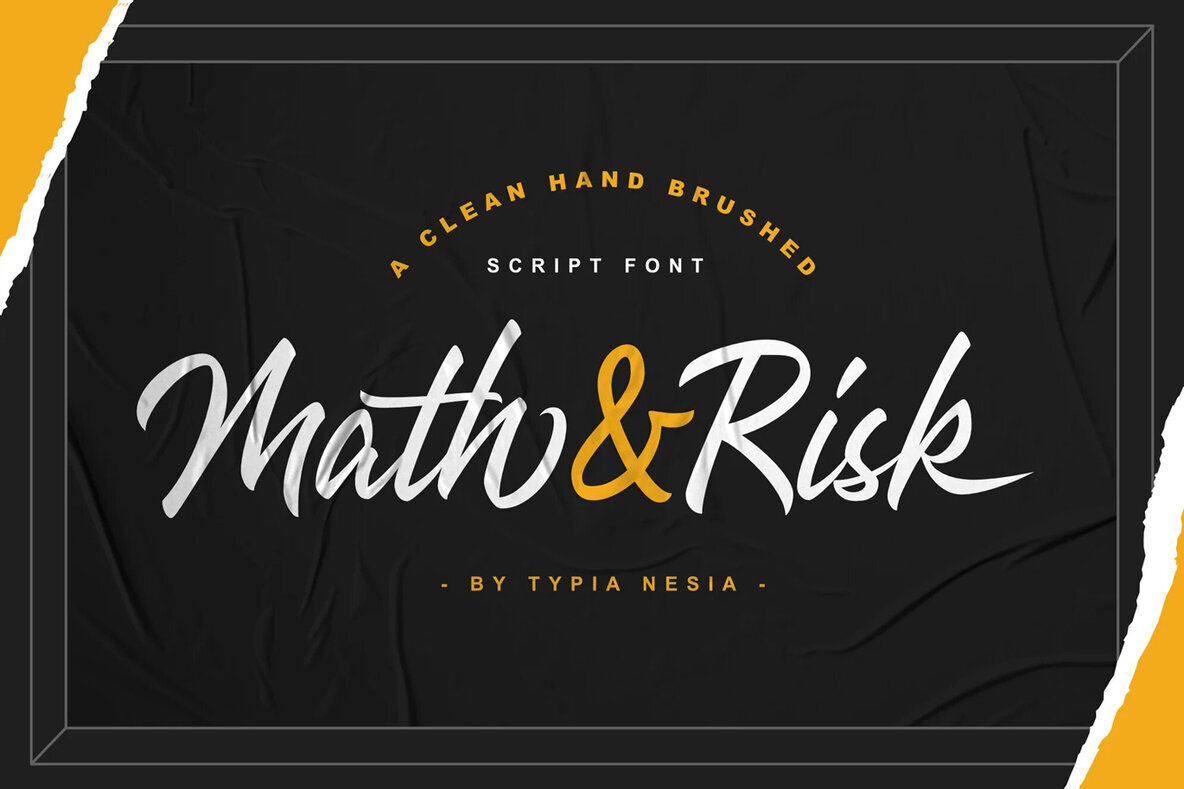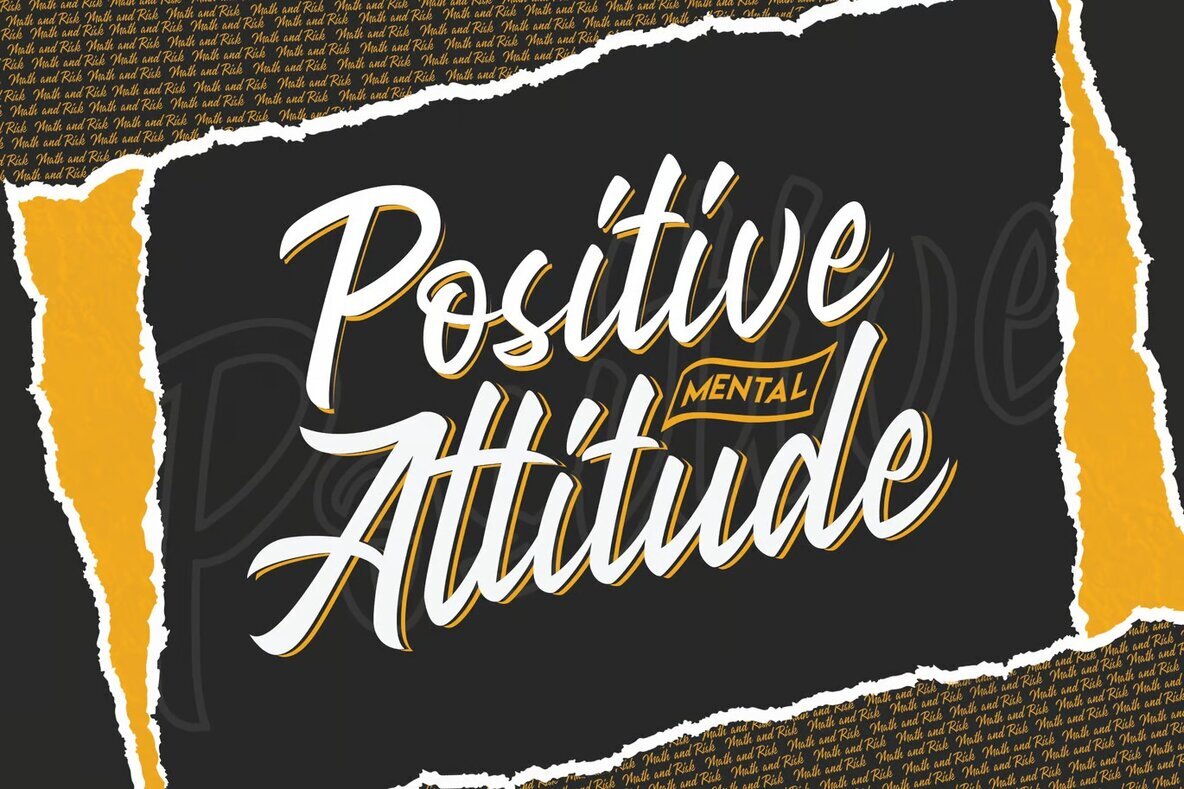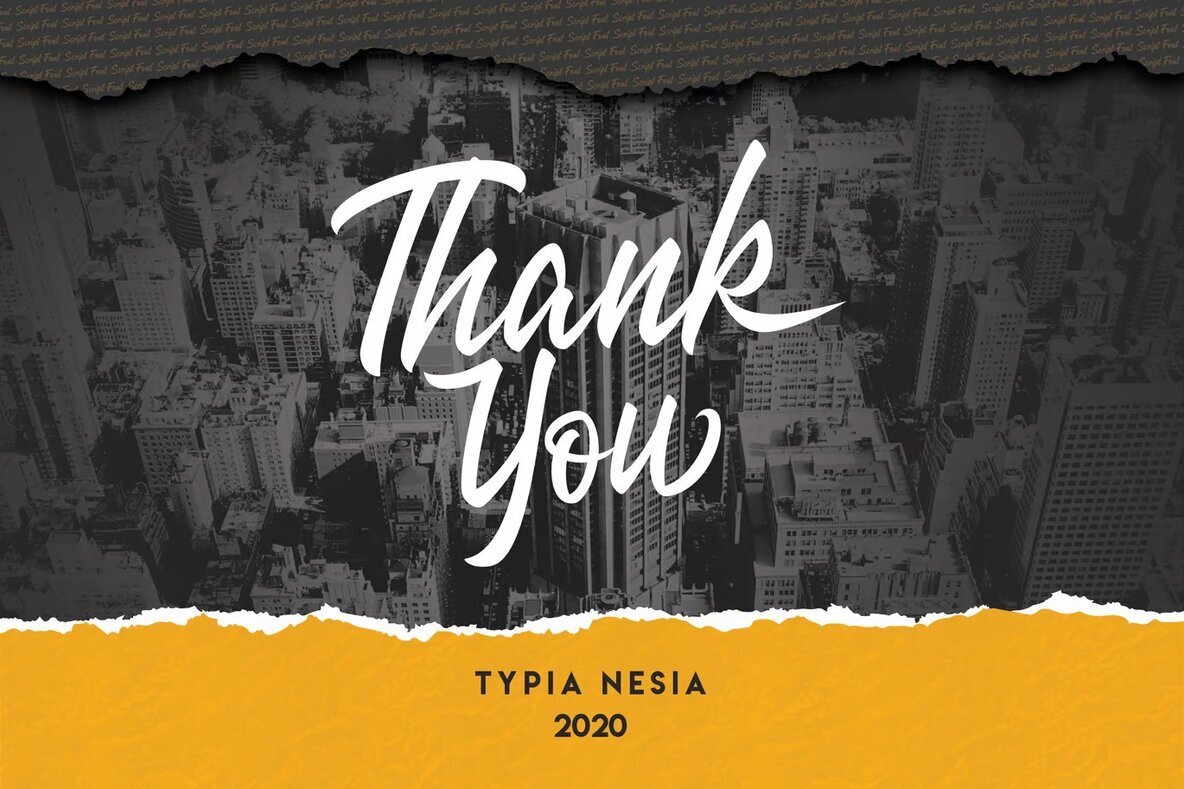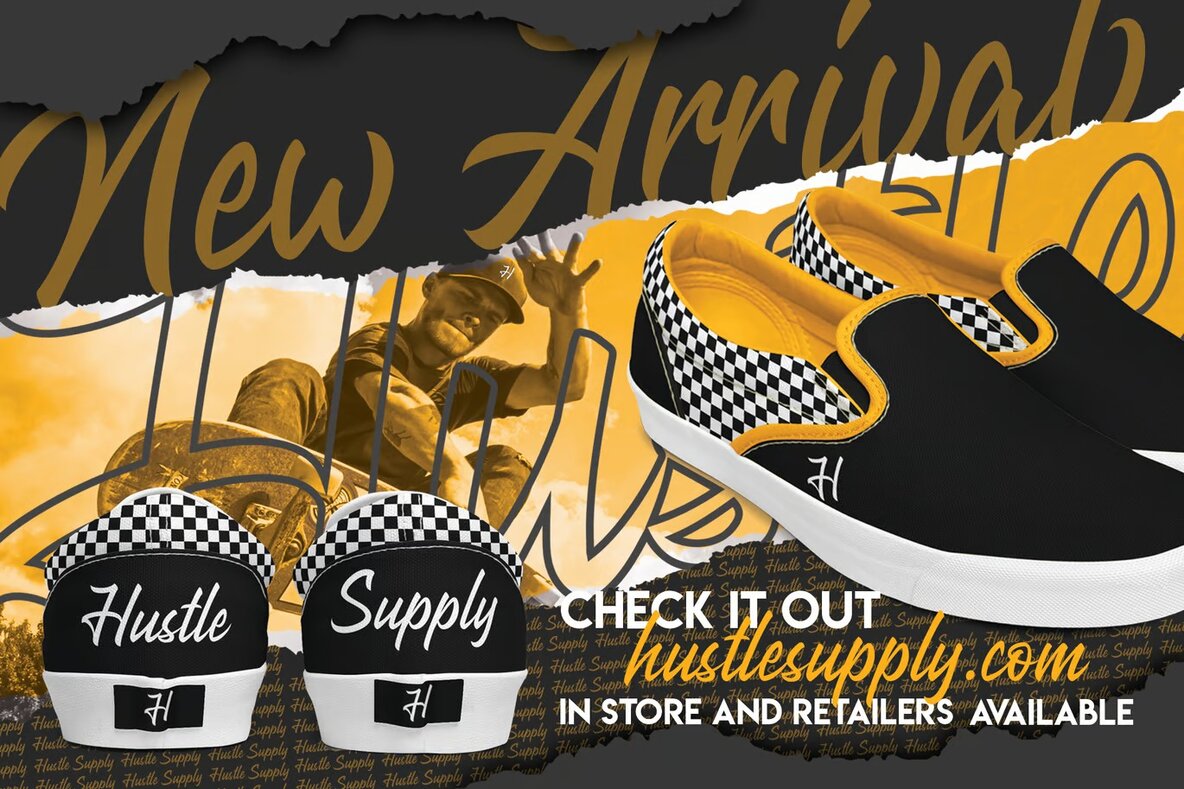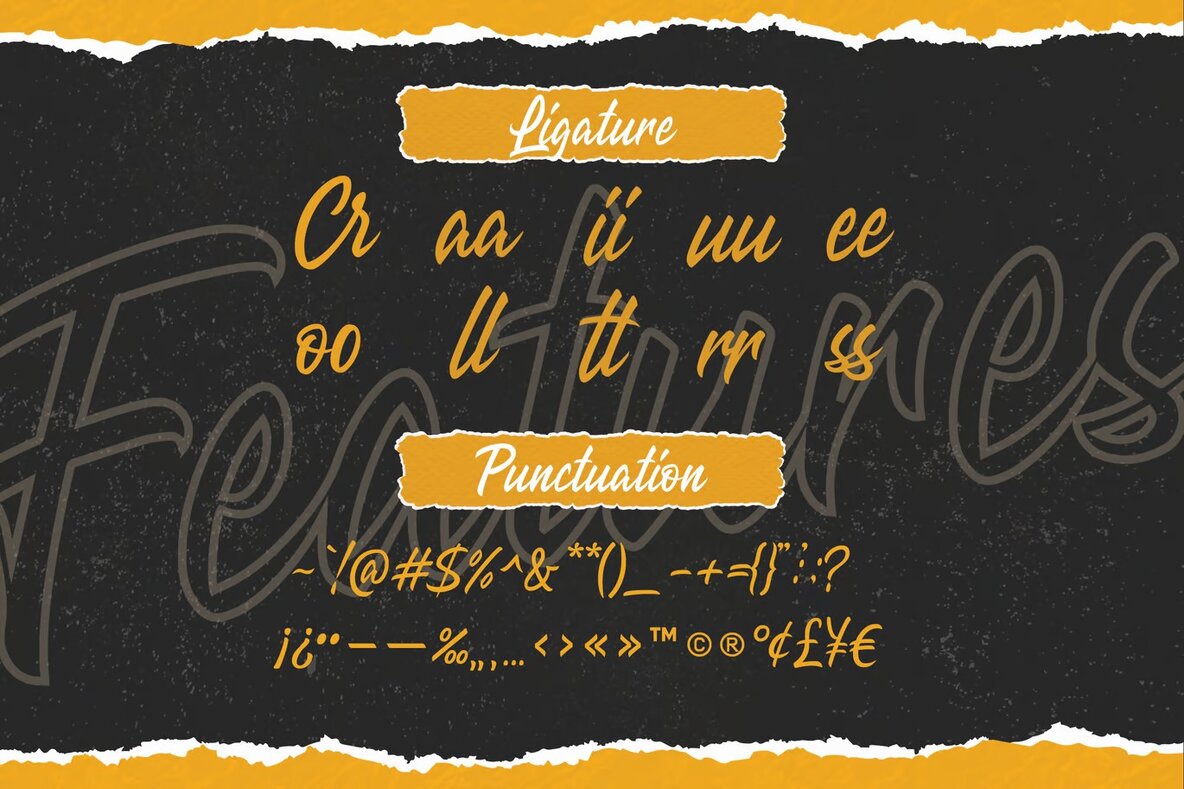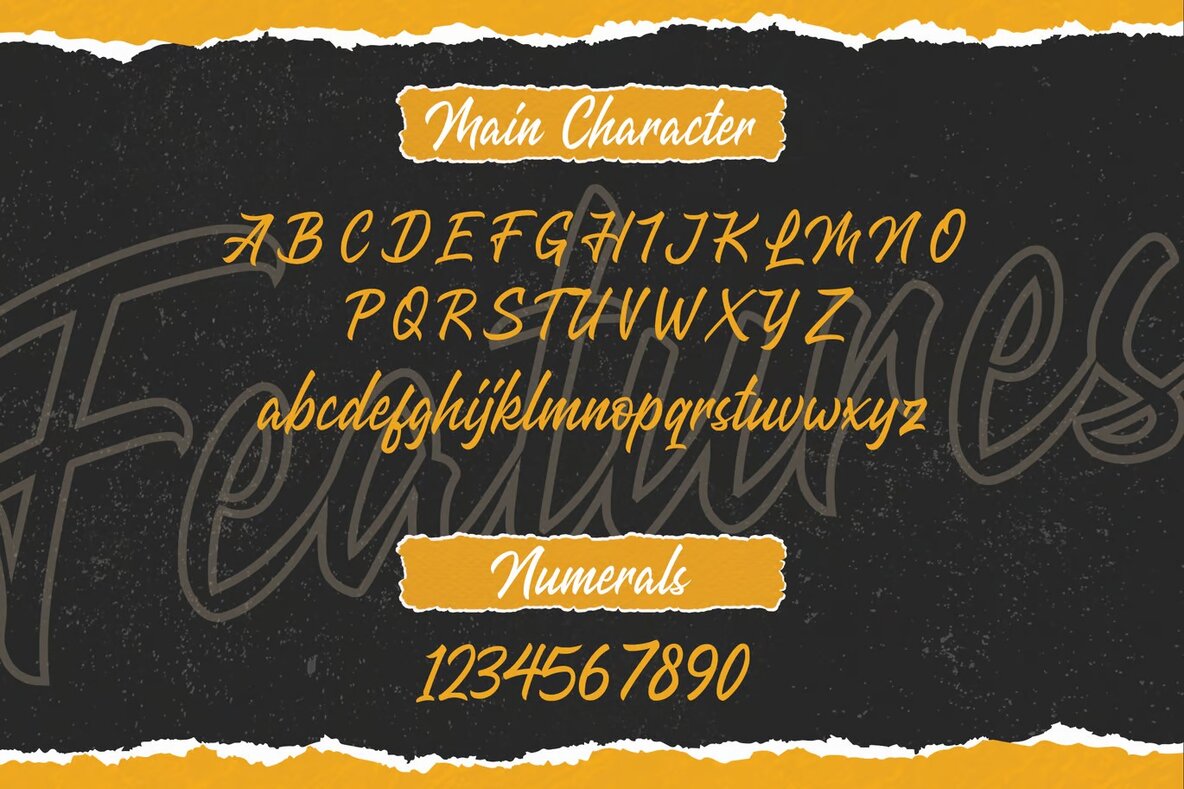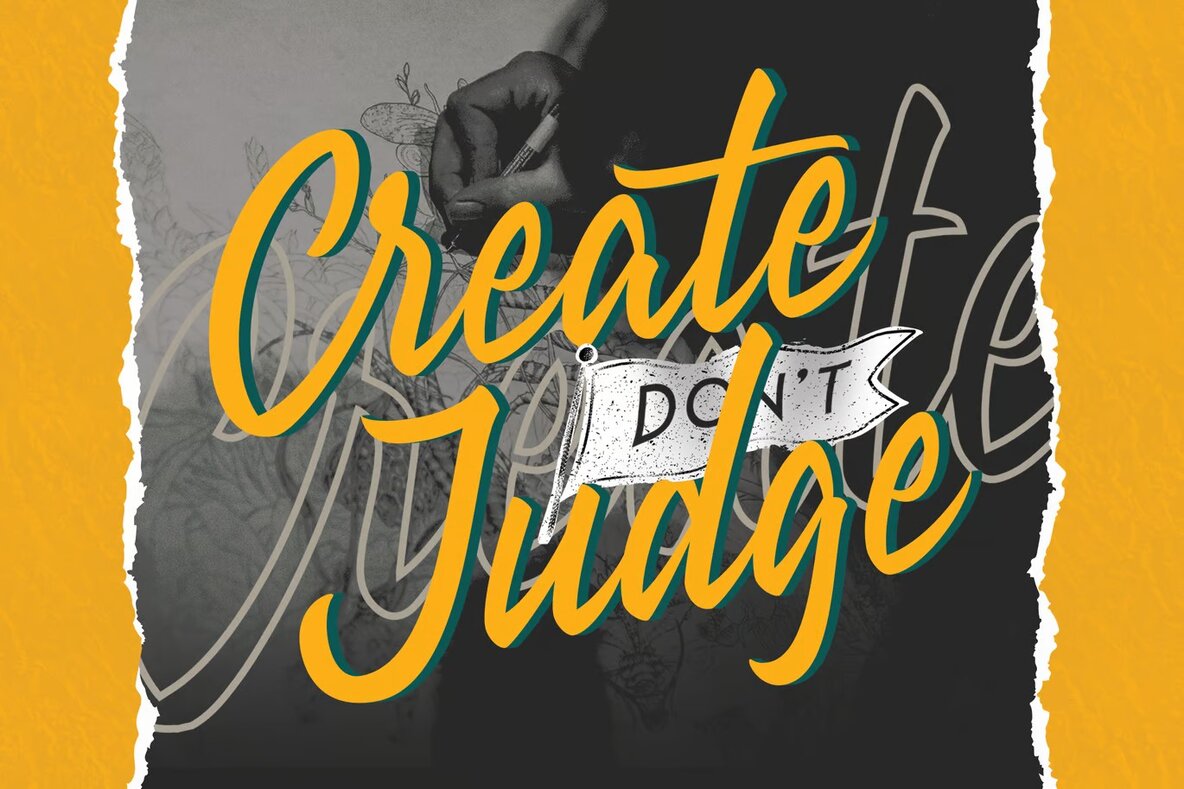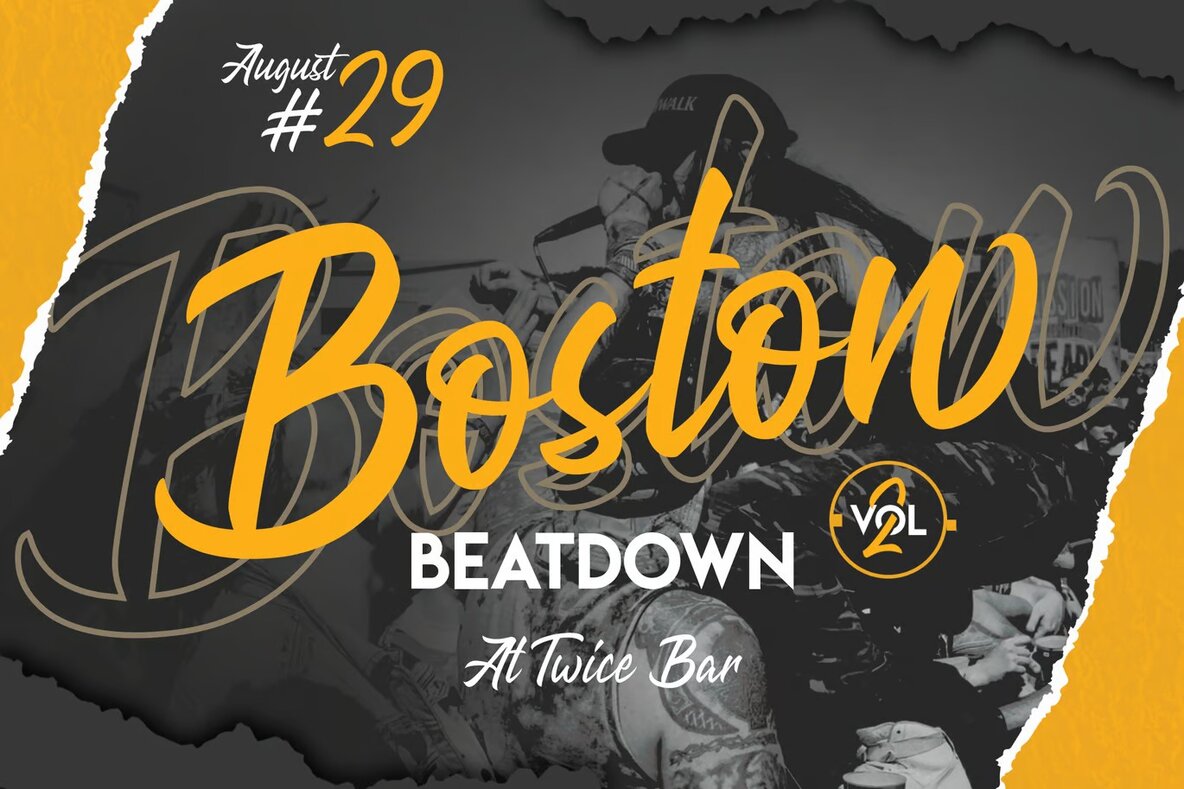
Math and Risk Font
Math and Risk
Math and Risk by Typia Nesia Std is a versatile brush calligraphy font, tailored to meet a broad spectrum of design needs. This font blends clean brush strokes with calligraphic flair, making it ideal for branding, logos, posters, editorial design, and more. Whether you're crafting a book cover, designing a website, or creating custom apparel like t-shirts and mugs, Math and Risk provides the elegance and adaptability you require for any hand-lettered project.
This font offers a comprehensive set of features, including uppercase and lowercase standard characters, punctuation, numerals, and a variety of glyph variations. It supports OpenType features such as standard ligatures, stylistic alternates, and stylistic sets, allowing for personalized and creative typography. Math and Risk also includes PUA Encoded Characters, ensuring easy access even without specialized design software, along with a range of multilingual characters to broaden its usability across different languages.